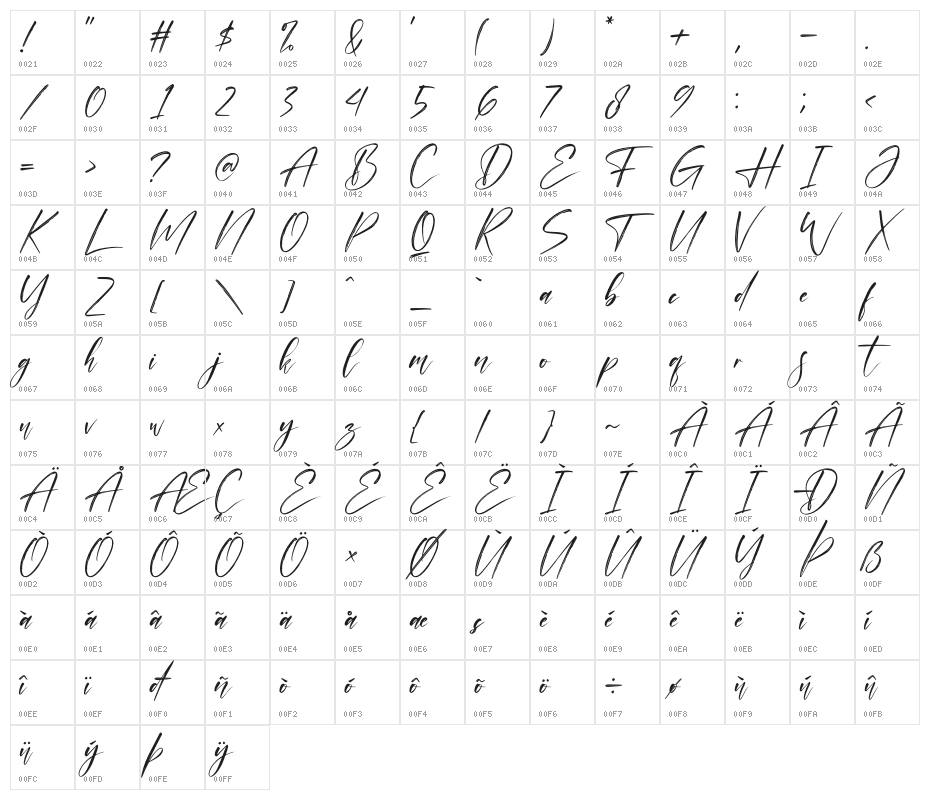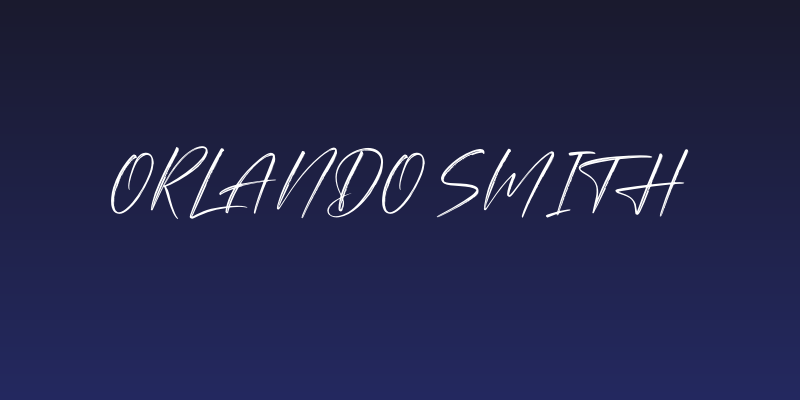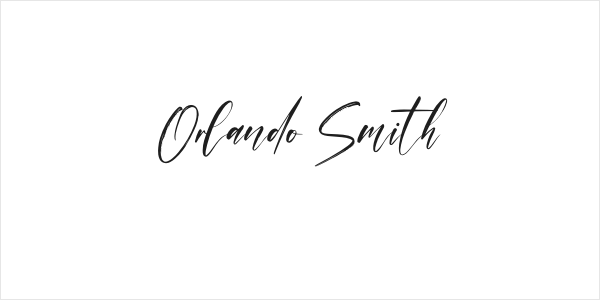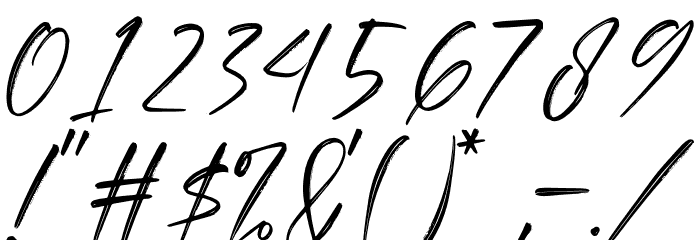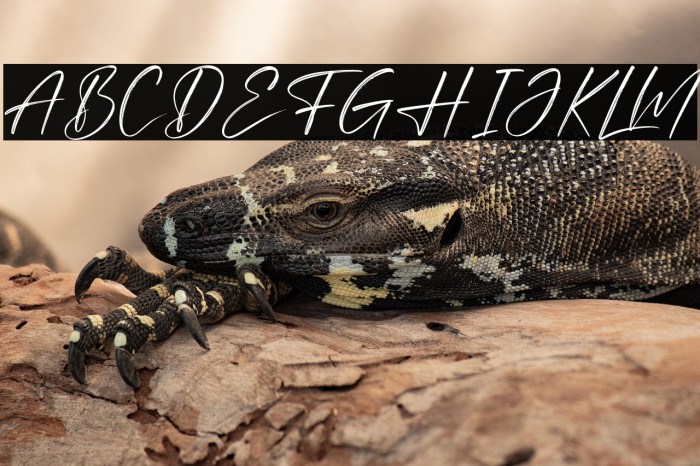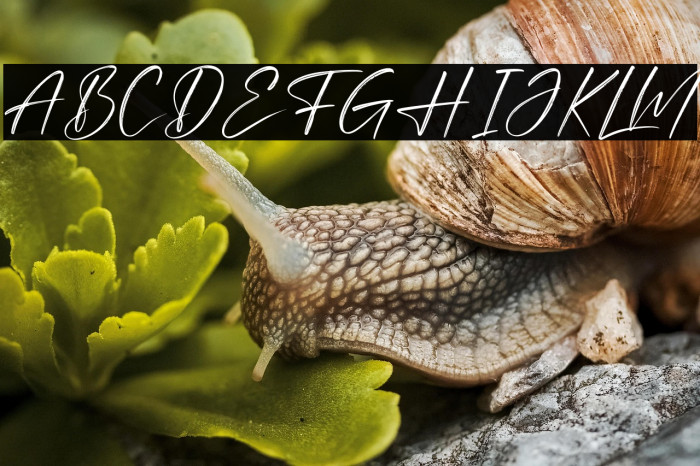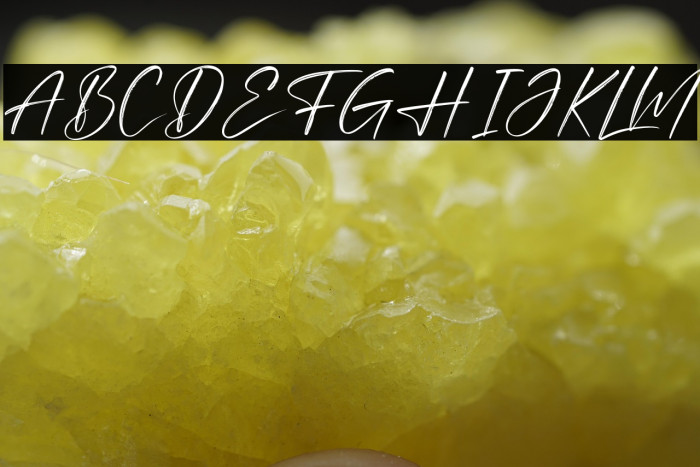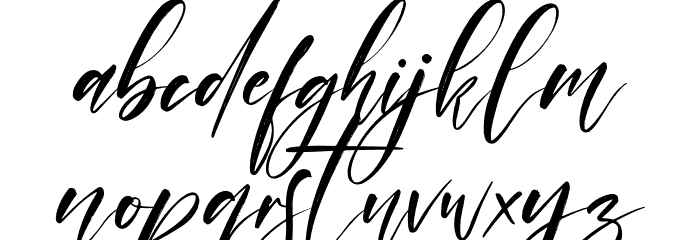
Orlando Smith Font
Orlando Smith Description
This font showcases a dynamic and flowing handwritten style, characterized by its elegant and fluid strokes. The uppercase letters are tall and slightly slanted, giving a sense of movement and grace. The lowercase letters maintain a consistent rhythm, with some characters featuring unique loops and swashes that add a touch of sophistication. The numerals are well-integrated into the overall design, maintaining the same fluidity and style. Special characters are creatively designed, complementing the overall aesthetic. This font exudes a sense of modern elegance, perfect for projects that require a personal and artistic touch.